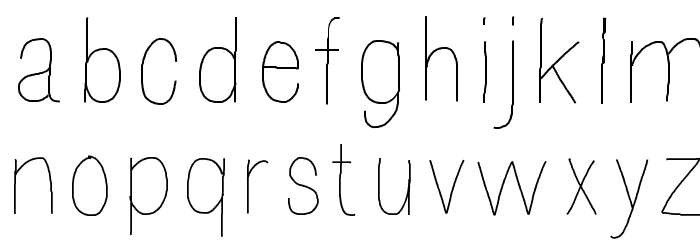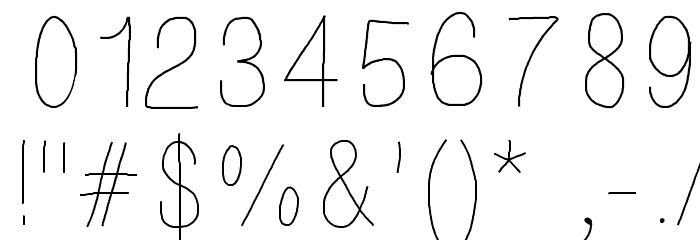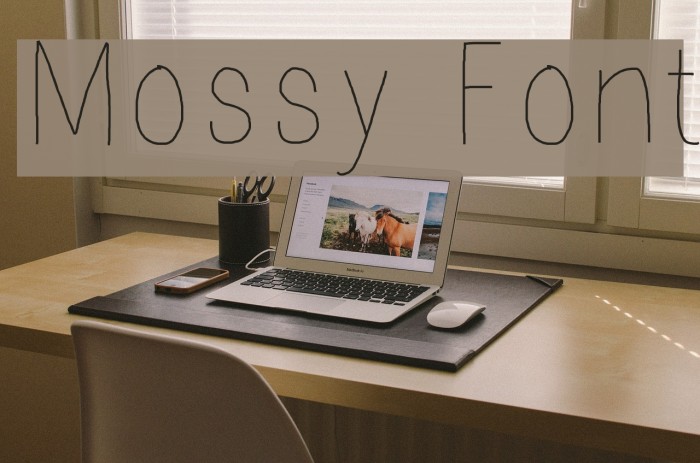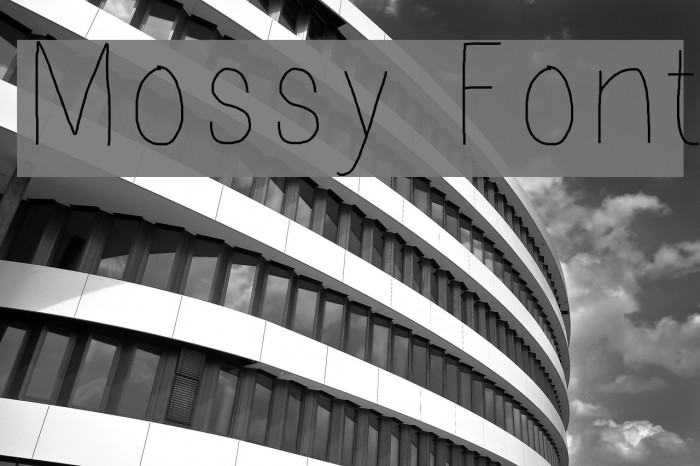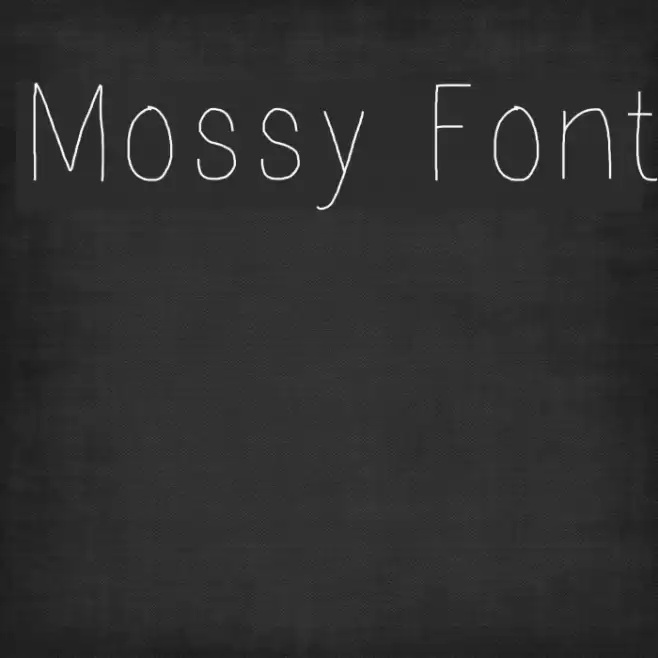
Mossy Font
This font features a delicate, hand-drawn appearance with thin, consistent lines that give it a light and airy feel. The characters are slightly elongated with a subtle irregularity that adds a personal touch, reminiscent of handwriting. The uppercase letters maintain a uniform height, while the lowercase letters have a gentle curve, creating a harmonious balance. Numbers and special characters follow the same slender style, ensuring a cohesive look across all elements. The overall design is simple yet elegant, making it versatile for various applications.
A thin, hand-drawn font with a light, airy feel and subtle irregularities.
- Proposed Projects: Ideal for projects that require a personal touch, such as invitations, greeting cards, or artistic branding.
- Use Case: Logos, Invitations, Artistic Branding